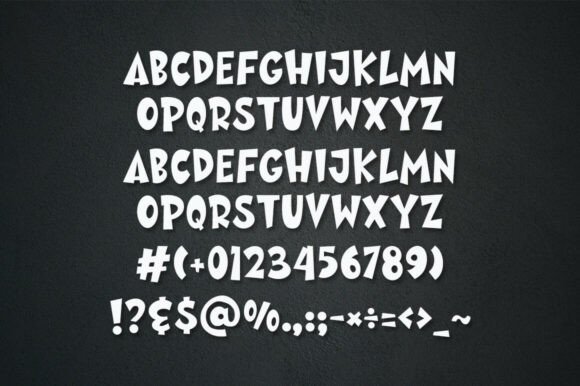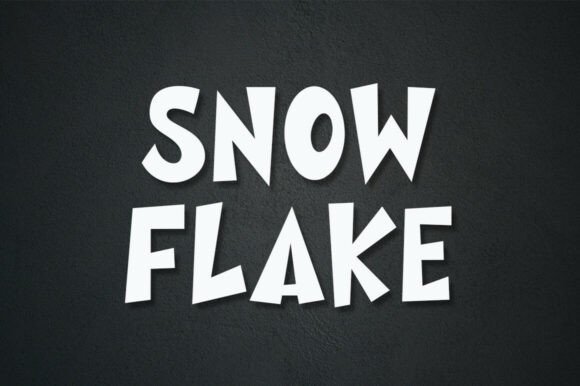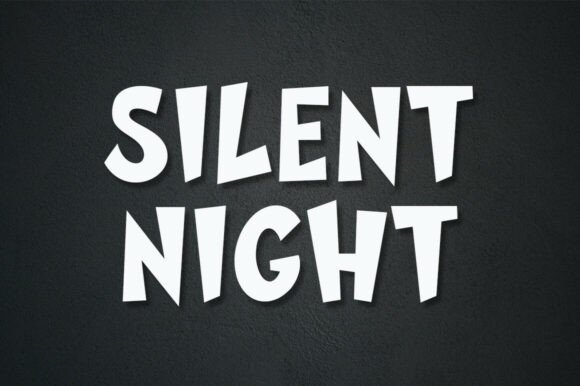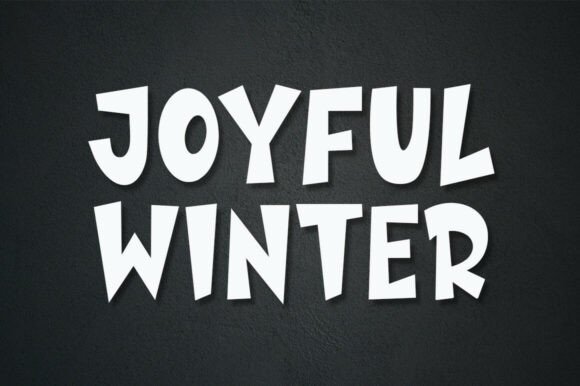
Introduction to Grinch Stolen Font Font
Fonts play a crucial role in design, and the Grinch Stolen Font font is a typeface that brings both character and versatility to any project. Whether you’re working on a branding project, a website, or a print design, the Grinch Stolen Font font offers a unique style that can elevate your work.
Grinch Stolen font is a quirky, irregular display typeface that captures the mischievous and whimsical energy of holiday storytelling.
This Grinch Stolen typeface features blocky, hand-cut letterforms with sharp, unexpected angles that create a playful sense of movement It is an exceptional choice for themed party flyers, childrenβs book titles, and seasonal apparel that needs a βpopβ of personality.
Key Features of Grinch Stolen Font Font
Why Choose Grinch Stolen Font Font?
The Grinch Stolen Font font is more than just a typeface β it’s a design tool that helps you communicate your message with style and clarity. Its unique character set and versatile design make it suitable for a wide range of applications, from elegant invitations to bold headlines.
With its carefully crafted letterforms and balanced proportions, the Grinch Stolen Font font ensures readability and visual appeal across all mediums.
What makes Grinch Stolen Font font special?
The Grinch Stolen Font font stands out with its unique design, exceptional readability, and versatility across various design applications.